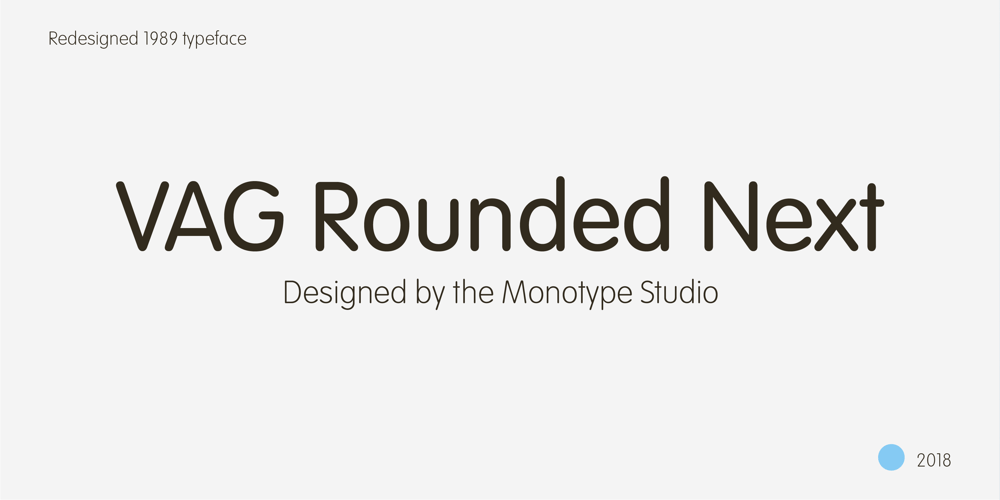
VAG Rounded Next Font Family was designed by Steve Matteson, Tom Grace, Monotype Design Studio, Volkswagen and published by Monotype. VAG Rounded Next contains 22 styles and family package options. VAG Rounded Next brings a classic 1970s typeface up to date, keeping all of its easy going, approachable personality but adding some much-needed versatility and language support. Originally commissioned by Volkswagen, VAG Rounded remained in use by the company until the early 90s and has also been used by Apple, Skype and Myspace. Its enduring appeal lies in its appealingly rounded terminals, and its immediate, informal tone of voice. “When you look at the Volkswagen Beetle it has these curves that are timeless and legendary,” says Steve Matteson, who led the creation of VAG Rounded Next. “I think that’s what stands out in this design – that friendly aesthetic, and the simple line and circle.” This new version offers 700 glyphs with pan European language support (including Greek and Cyrllic), as well as 10 weights of upright and italic styles. New display weights Shine and Rough – which create “chocolate popsicle” and “rust” effects – are begging to be used in branding, packaging and editorial projects, while the lighter weights are well suited for text.VAG Rounded Next Variables are font files which are featuring one axis and have a preset instance from Thin to Black.